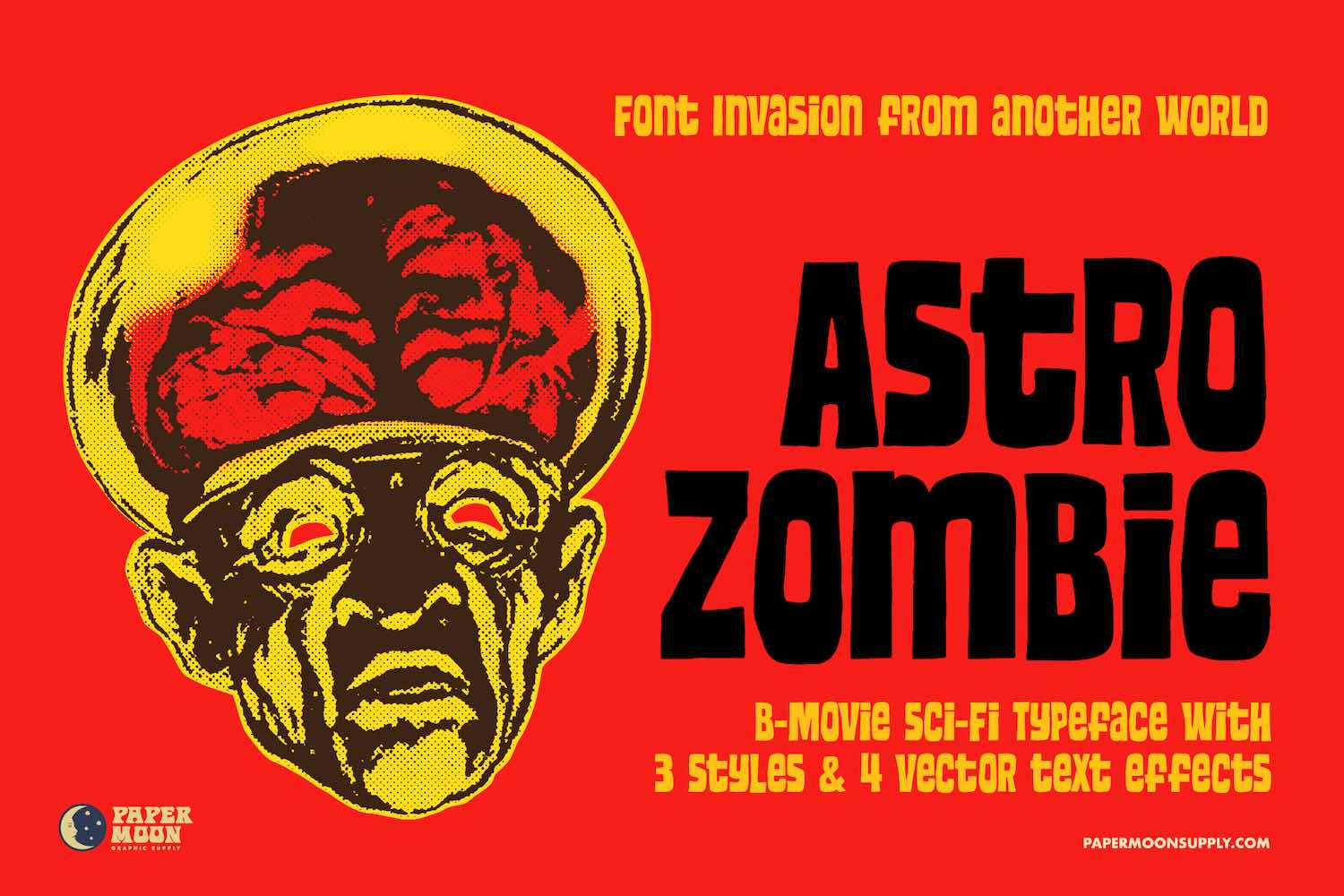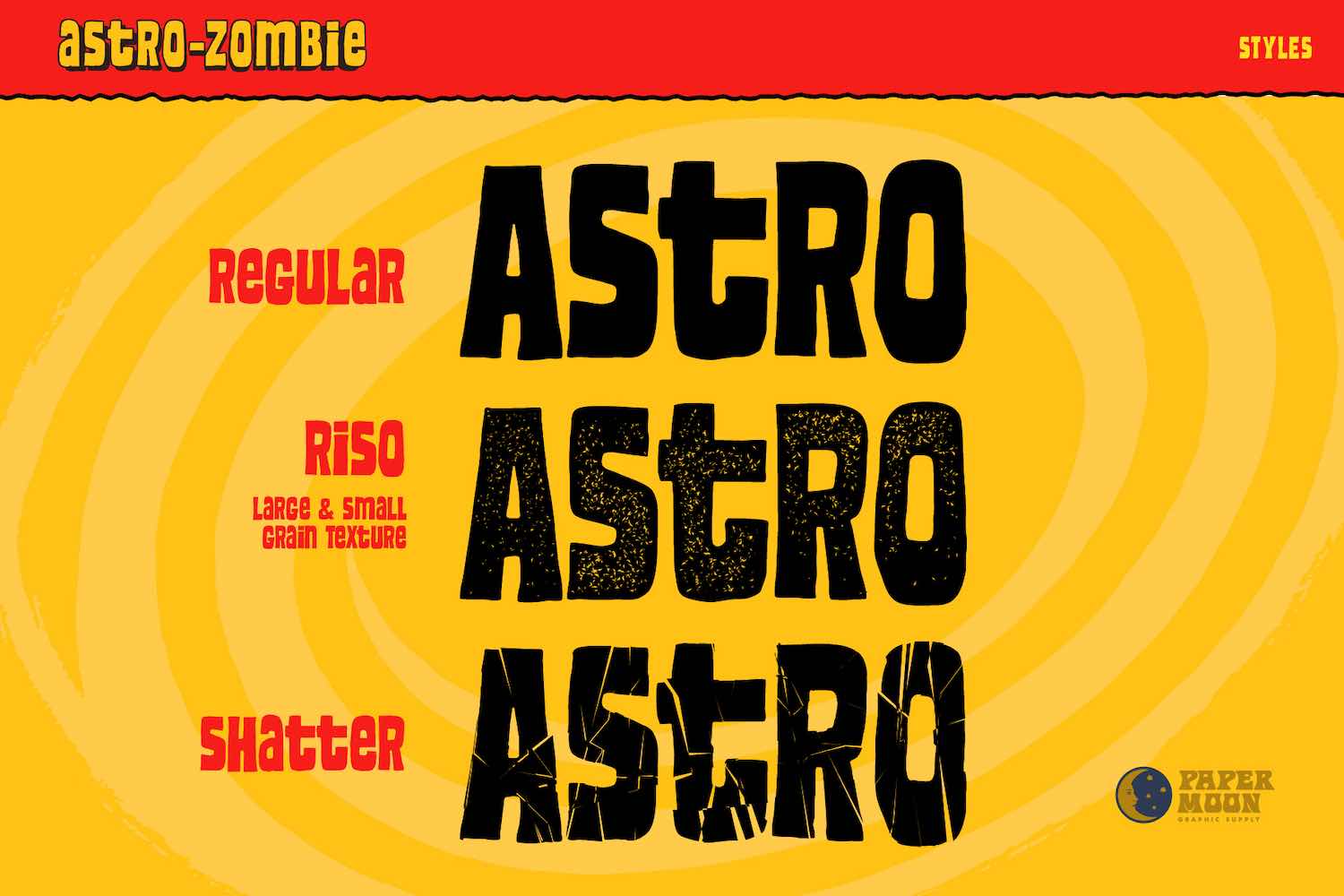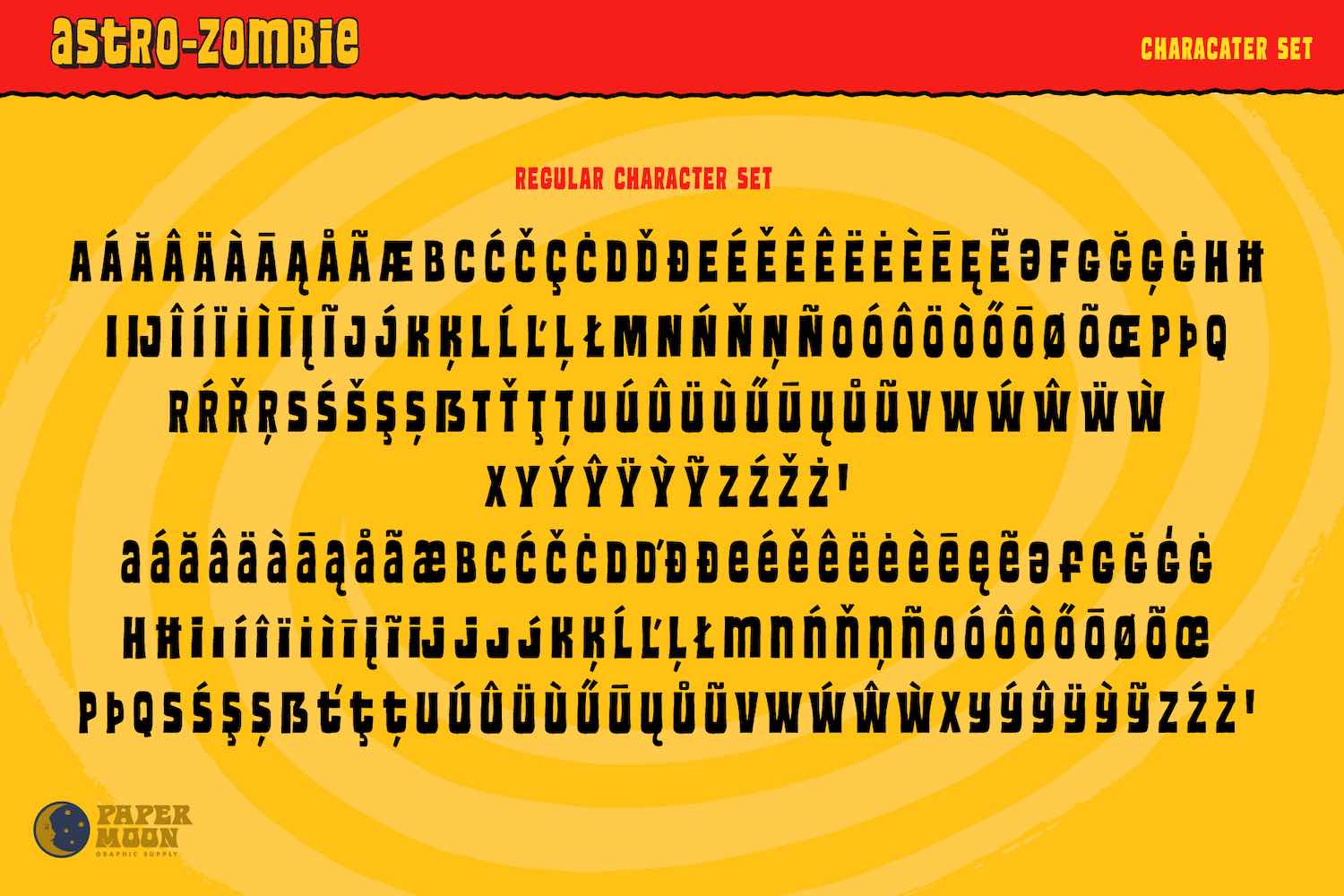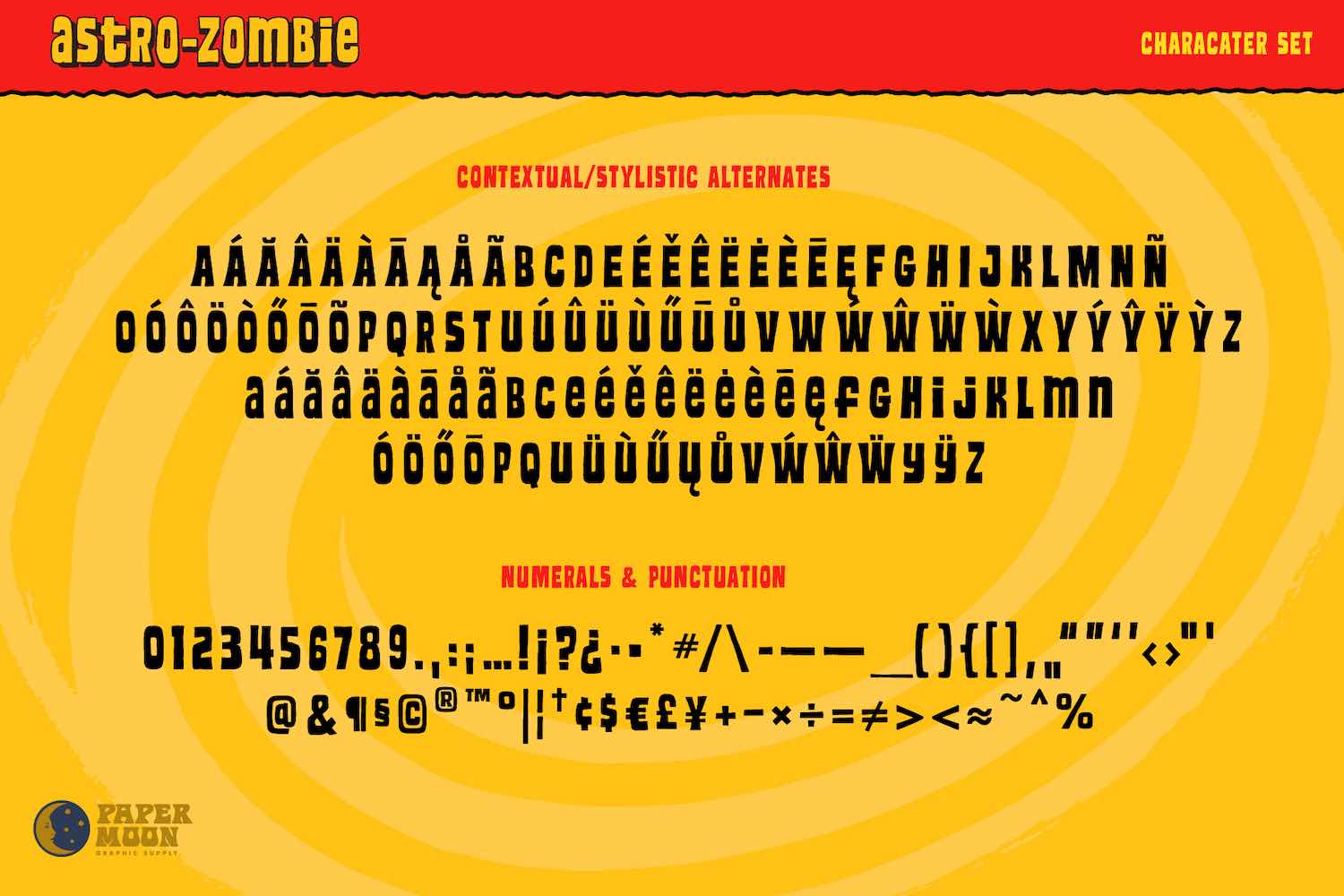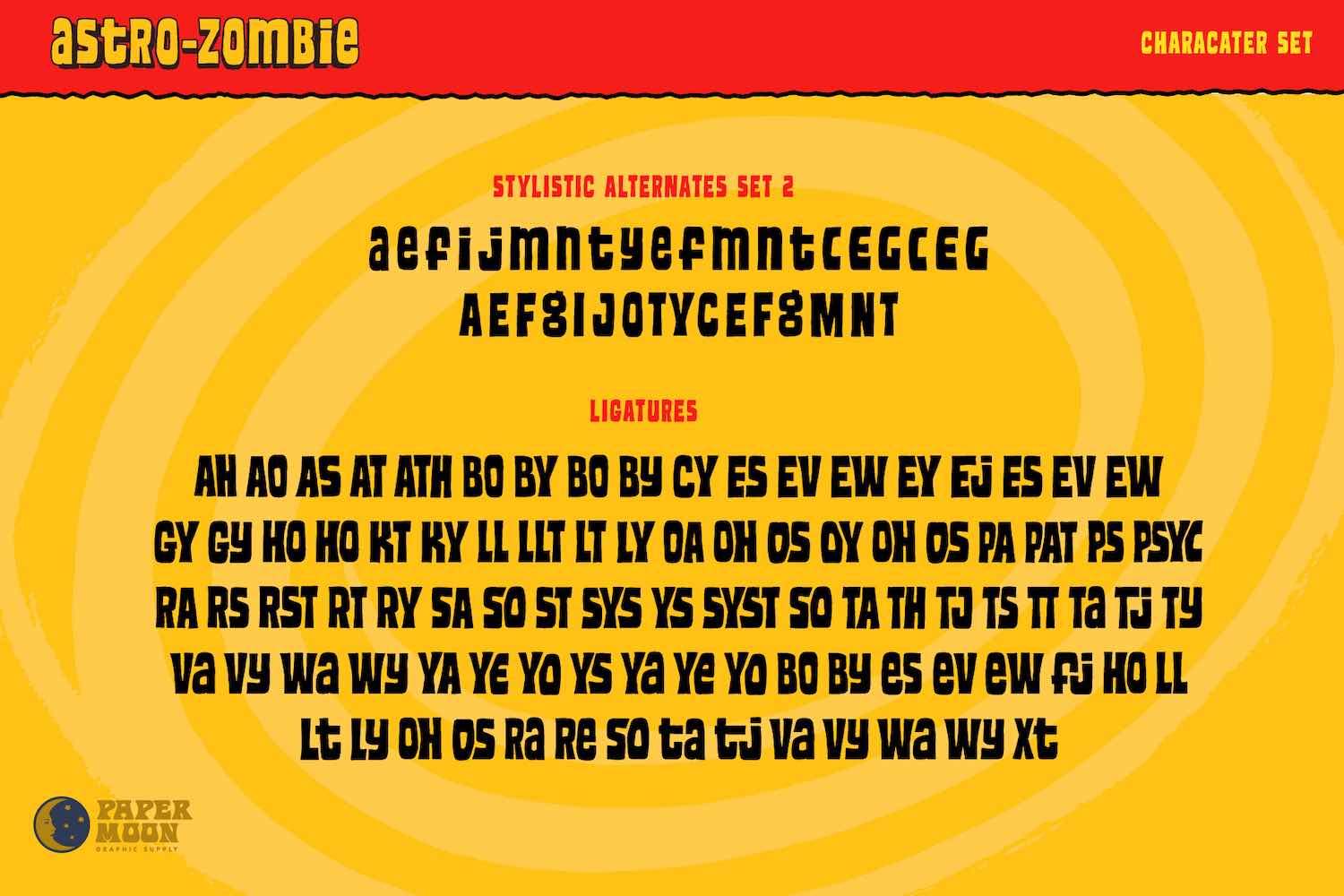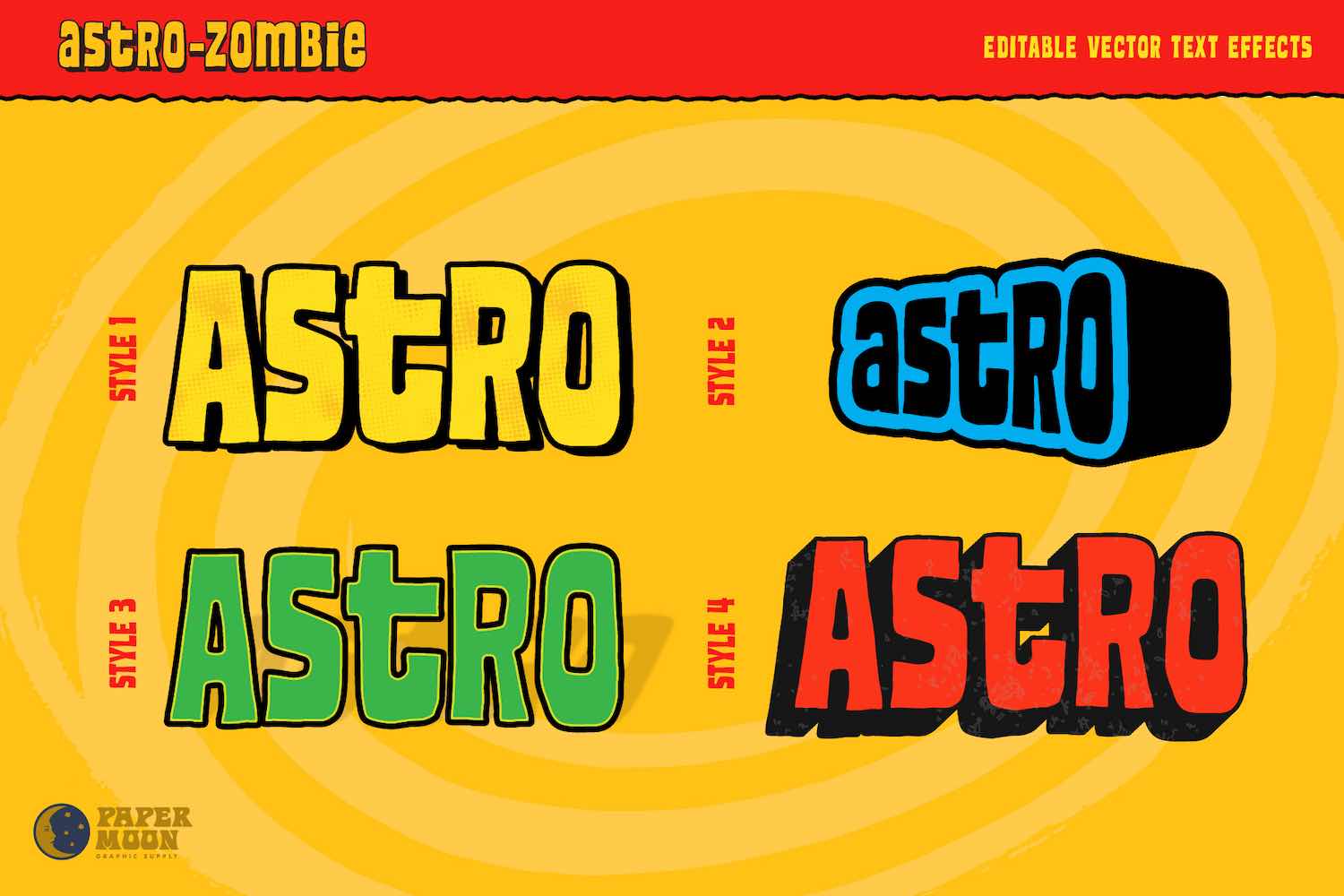
From deep space to your design desk comes Astro Zombie. This is a B-movie sci-fi typeface that’s oozing with atomic-era weirdness and pulp charm. Created by Paper Moon Graphic Supply, this font family is a love letter to the wonky, mind-melting movie posters of the ‘50s and ‘60s.
Whether you're designing a comic cover, gig poster, or Halloween packaging, Astro Zombie gives your work that unmistakable cult classic flair.
- Three Distinct Styles. Includes Regular, Riso (with both large and small grain textures), and Shatter for maximum variety and tactile grit.
- Built-in Texture & Decay. Riso styles add authentic risograph-inspired grain, while Shatter gives your type the cracked, crumbling look of old film reels and creased theater ads.
- Bonus Vector Text Effects. Comes with 4 editable vector text effects to instantly inject retro 3D punch and off-register flair.
- Packed with Extras. Over 10 pieces of vintage sci-fi vector art included — ray guns, aliens, brainy invaders, X-ray specs, and more.
- Extensive Language Support. Includes accented characters, ligatures, alternates, punctuation, and numerals — all with contextual flair.
There’s nothing else in this galaxy like Astro Zombie. It’s the ultimate type weapon for designers craving that authentic, interstellar B-movie aesthetic.